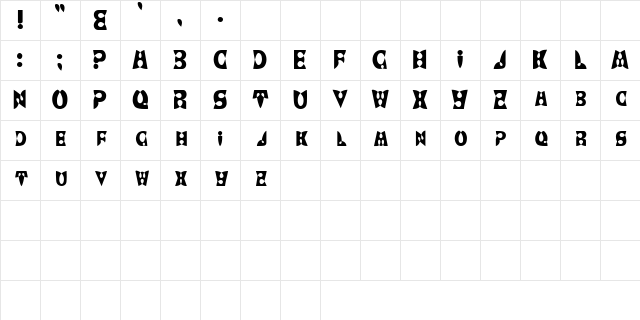
YoBabySCapsSSK Regular
Design Context for YoBabySCapsSSK
YoBabySCapsSSK is a composed and adaptable typeface that performs quietly and consistently across a wide range of design contexts.